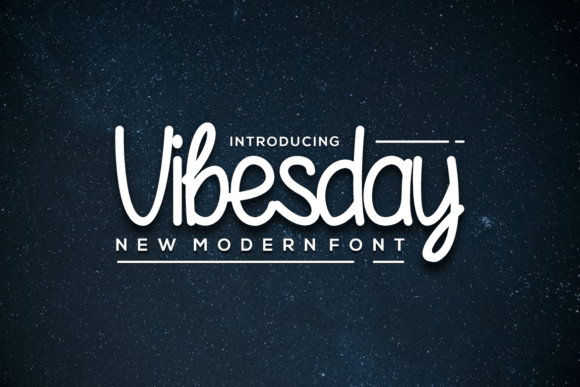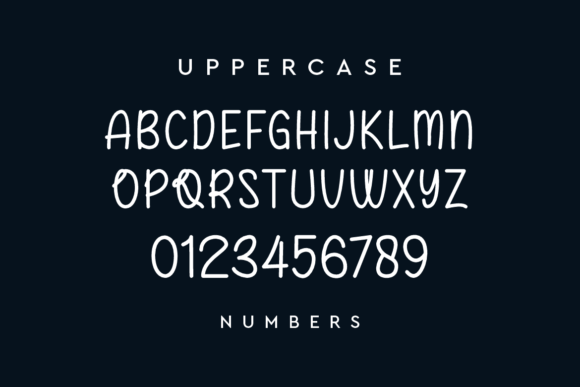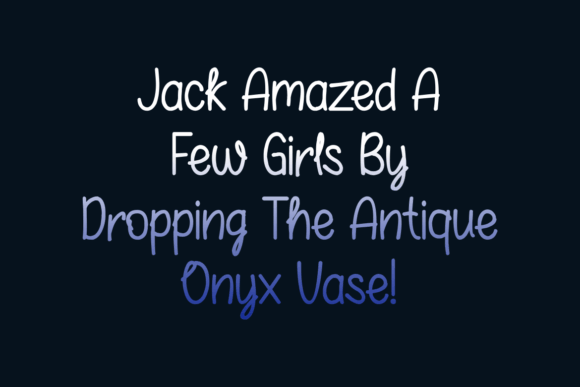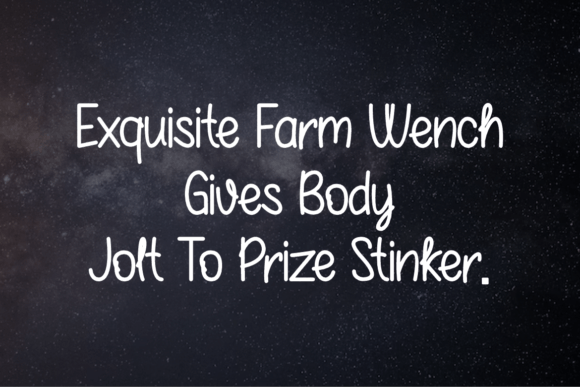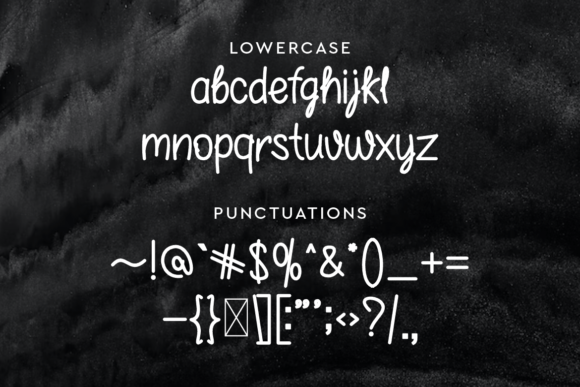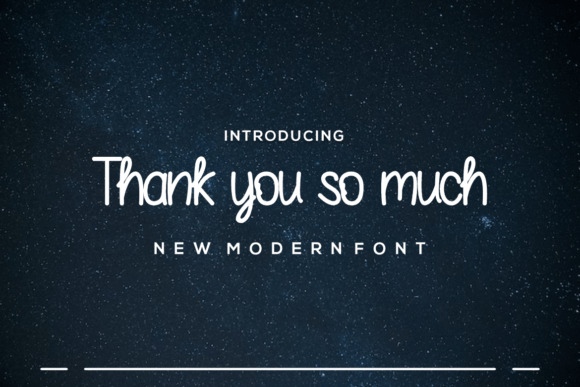
Vibesday Font
Vibesday Font Download – Stylish Casual Handwritten Script
The Vibesday Font download is a stylish handwritten typeface designed to bring casual charm and creativity to your projects. With its smooth curves and approachable flow, this font blends elegance with friendliness, making it a versatile choice for both personal and professional designs. Whether you are creating greeting cards, digital designs, or presentations, Vibesday adds warmth and personality.
A Stylish and Casual Handwritten Look
The Vibesday Font download captures the relaxed beauty of casual handwriting. Its playful strokes make designs feel welcoming, while its clean structure ensures readability. This balance makes it suitable for projects that need a mix of creativity and clarity.
Perfect for Crafts and DIY Projects
The Vibesday Font download is a great option for crafters. It works wonderfully for scrapbooking, planners, stickers, and handmade cards. Its casual handwritten style adds authenticity and uniqueness, making your projects feel personal and full of life.
Great for Presentations and Digital Designs
The Vibesday Font download shines in digital spaces such as presentations, websites, and social media graphics. Its stylish flow helps your message connect with audiences while maintaining a modern and approachable tone.
Readability with Friendly Character
Unlike overly decorative fonts, the Vibesday Font download keeps your text legible while still adding creative flair. Its neat forms and casual rhythm make it suitable for both large headlines and smaller design details.
Why Choose Vibesday Font?
Among handwritten typefaces, the VibesdayFont download stands out for its casual charm, stylish flow, and versatility. It works equally well for crafts, digital graphics, or branding, offering flexibility for a wide range of creative applications.
Add Style and Warmth to Your Projects
Typography sets the mood of your design, and the VibesdayFont download brings a perfect blend of style, friendliness, and creativity. Whether for greeting cards, crafts, or digital designs, this font ensures your projects feel engaging and full of character.